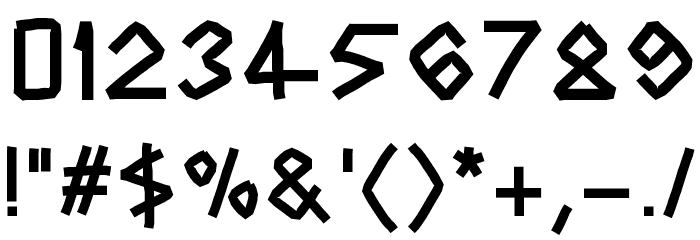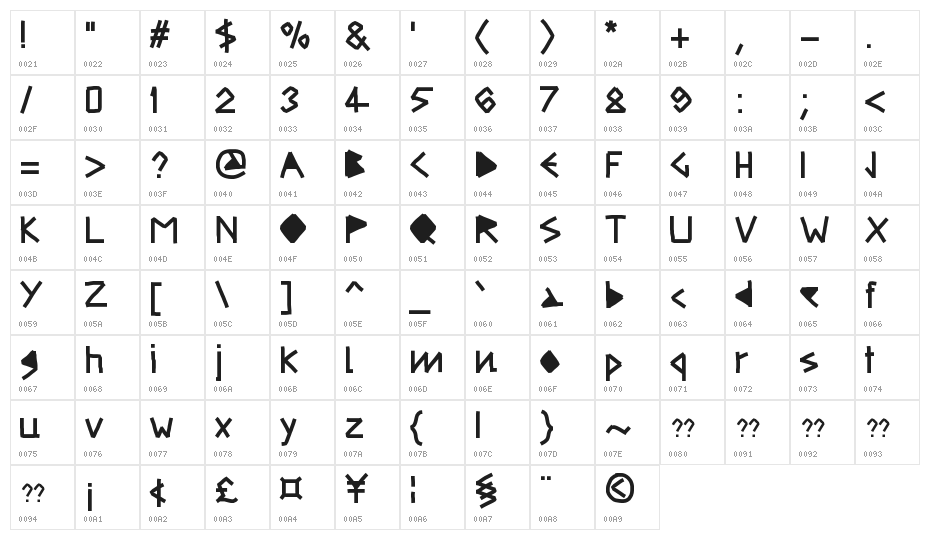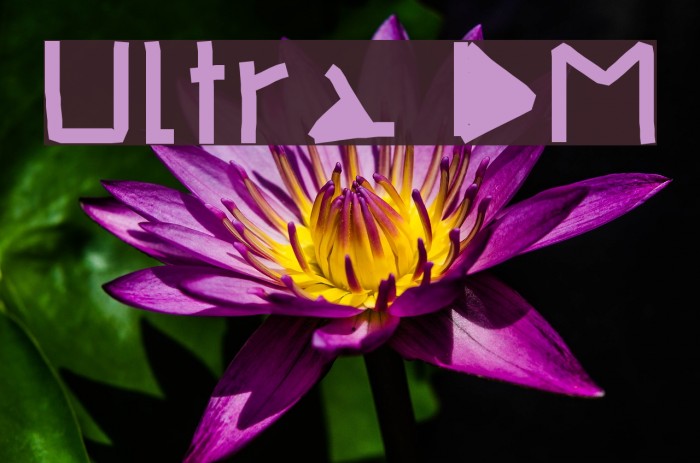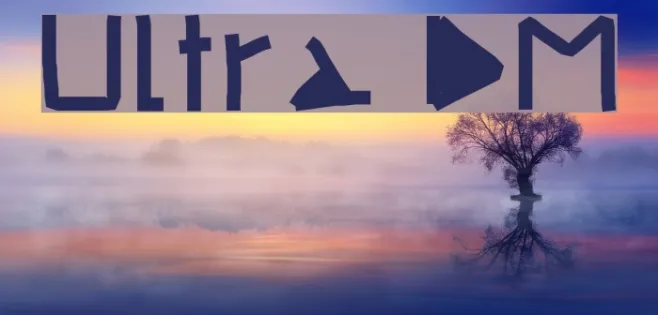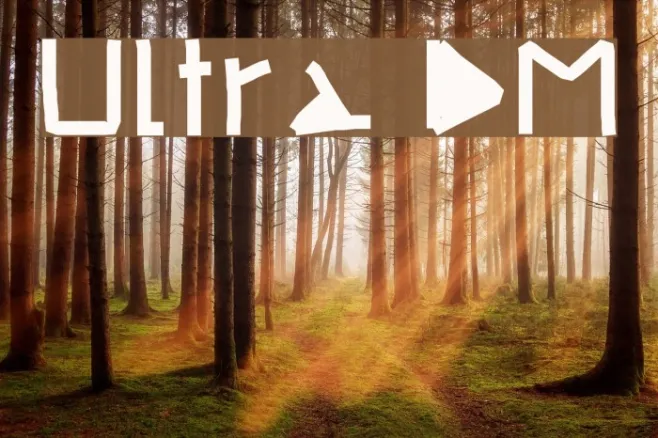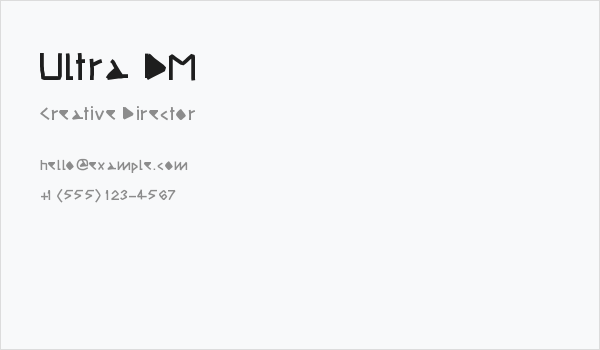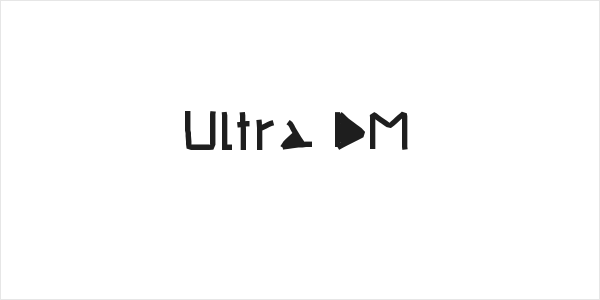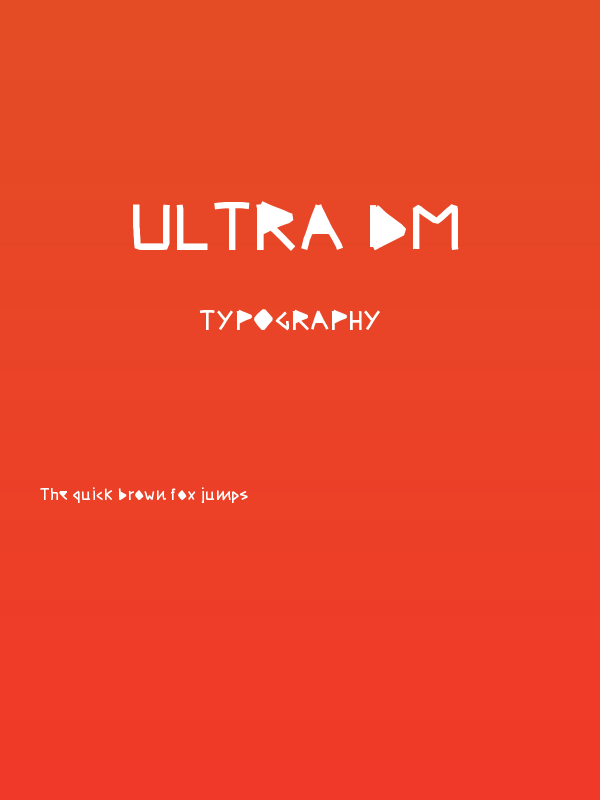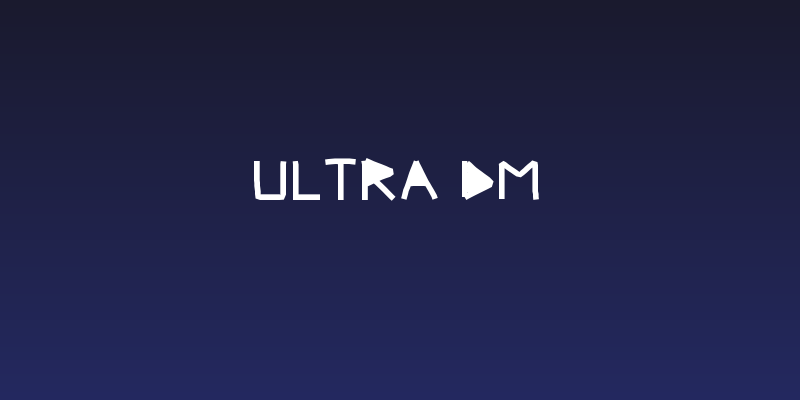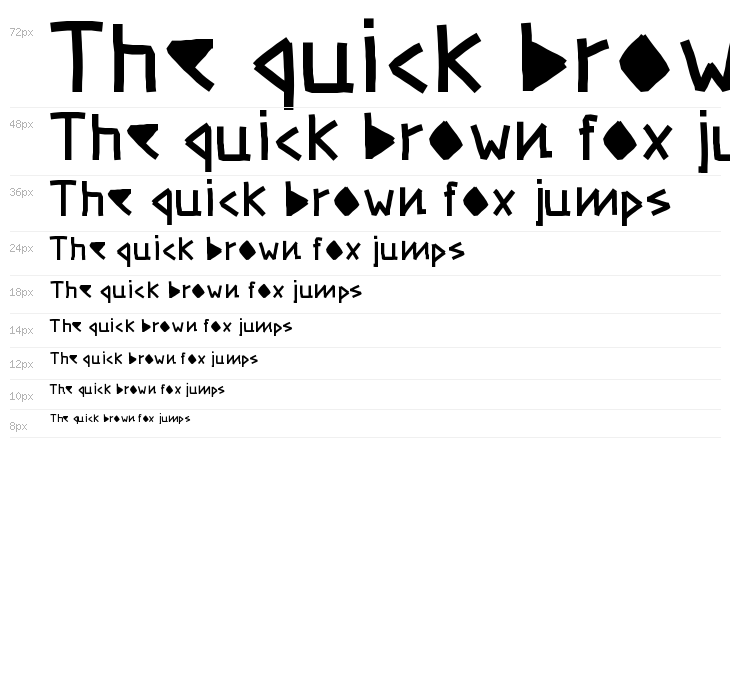
Ultra DM Font
Ultra DM Description
This font features a bold and angular design, characterized by sharp edges and geometric shapes. The uppercase letters exhibit a strong presence with their thick strokes and distinct angles, while the lowercase letters maintain a similar style, offering a cohesive look. The numerals and special characters follow the same angular theme, ensuring consistency across all characters. This font's unique style makes it stand out, providing a modern and edgy appearance that is both eye-catching and memorable.
| Proposed Projects | Ideal for projects that require a modern and edgy look, such as branding for tech companies, video game titles, or music album covers. |